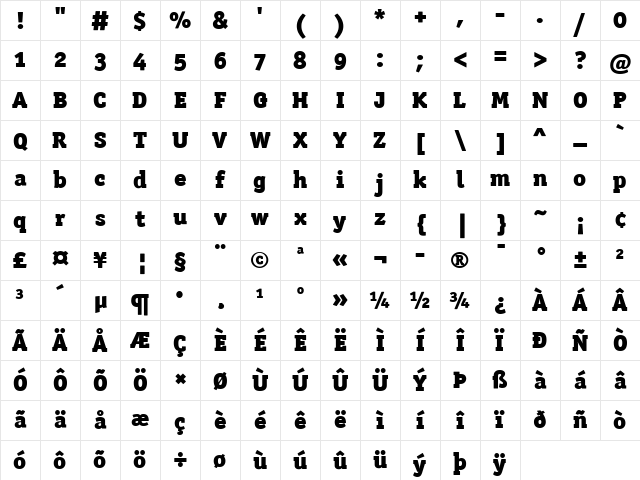
OfficinaSerITC Black
Foundry: (c) International Typeface Corporation and by Erik Spiekermann, Ole Schaefer
Design Context for OfficinaSerITC
OfficinaSerITC is a composed and adaptable typeface that performs quietly and consistently across a wide range of design contexts.
Who designed the OfficinaSerITC Black font?
This font was published by (c) International Typeface Corporation and by Erik Spiekermann, Ole Schaefer. Check the technical specs section for copyright and designer details.